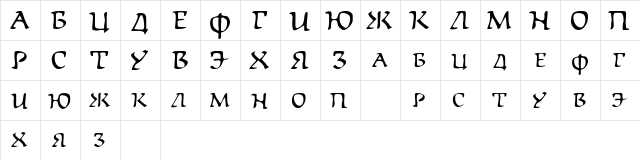
HellasUncialSCapsSSK Regular Font Preview
HellasUncialSCapsSSK Regular
HellasUncialSCapsSSK Regular Font Details
Design Context for HellasUncialSCapsSSK Typeface
HellasUncialSCapsSSK is a composed and adaptable typeface that performs quietly and consistently across a wide range of design contexts.